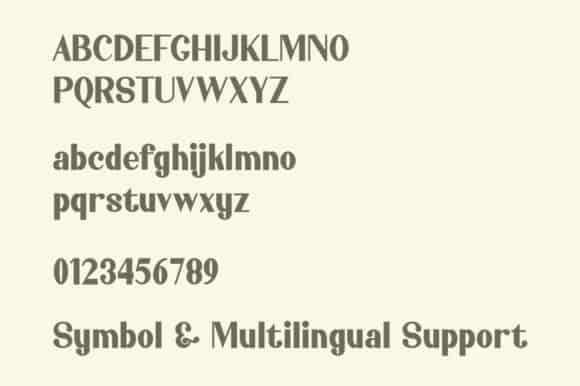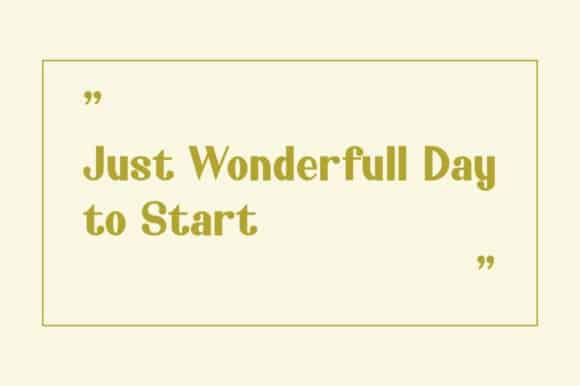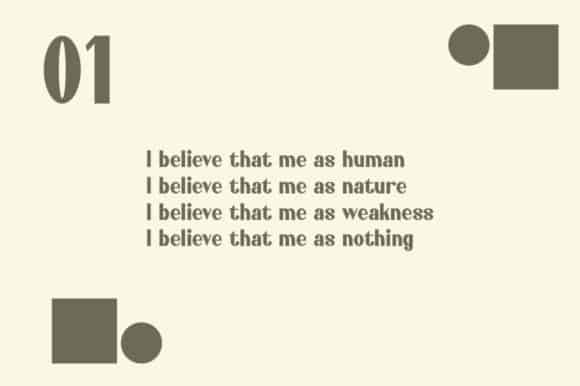
Jahasyah Sans Serif Font
Introducing, Jahasyah Sans Serif Font – A stylish bold sans serif typeface with a bunch of ligatures and alternates!. Masterfully designed to become a true favorite, this font has the potential to bring each of your creative ideas to the highest level!
Jahasyah is a bold and elegant typeface with a bunch of ligatures and alternates that will make your presentation, logo, or your wedding invitation even more stunning and stand out! Saphira also support Multi Language.